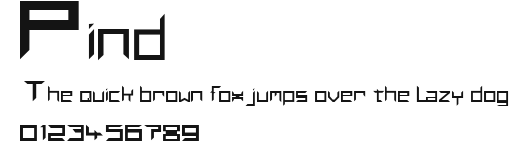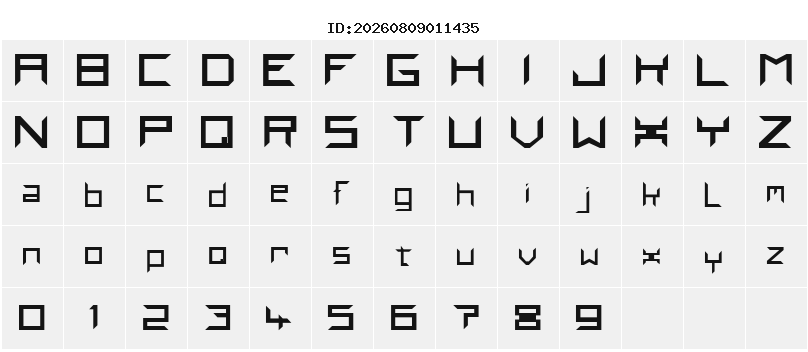
• Font Name: Pind
Pind.ttf is a modern, elegant sans-serif font designed for ultimate readability and visual harmony. Perfect for branding, headlines, web design, and print materials.